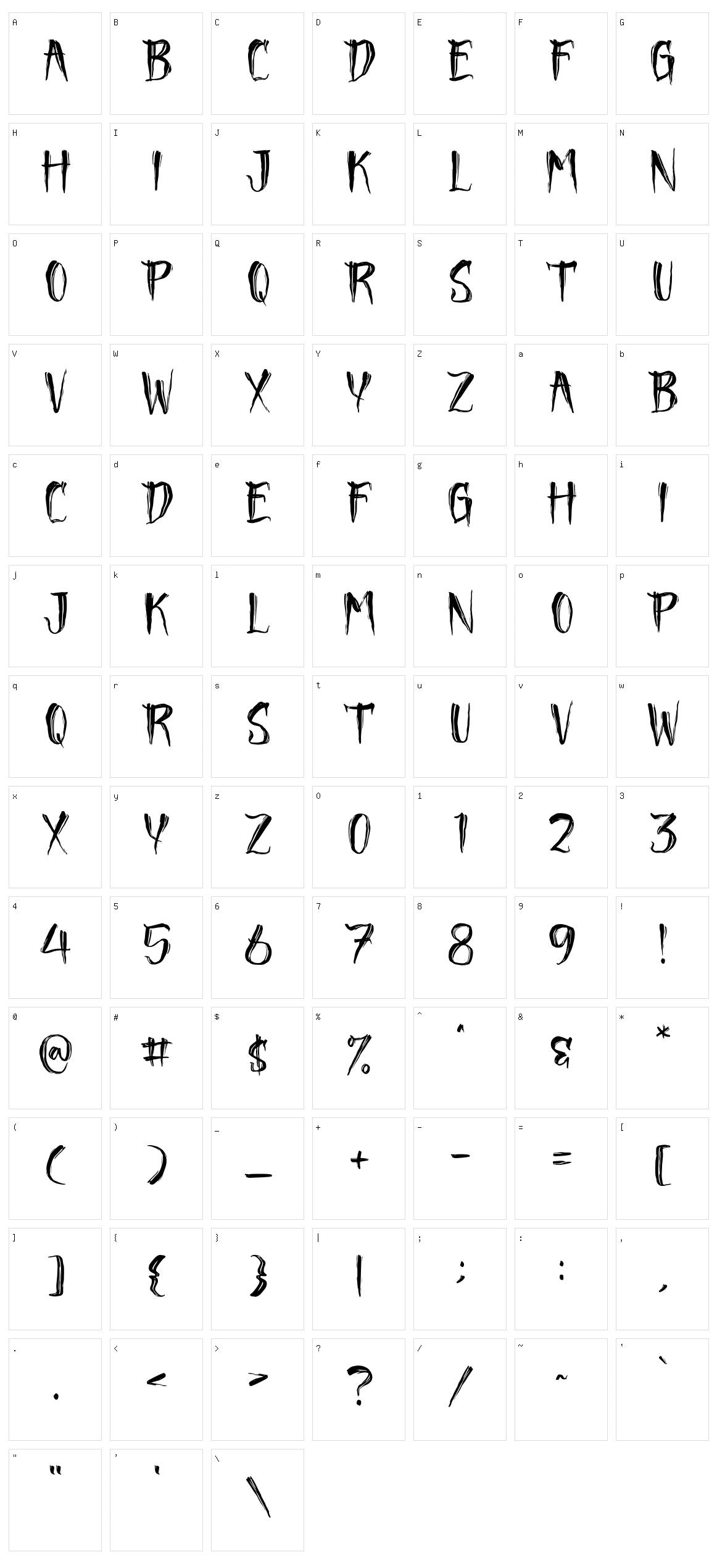
The free font Rusty Witches is carefully designed by Letterena Studios, showcasing a thoughtful balance of creativity and usability and falls under the Halloween font style. When you download the ZIP file, it contains only 68.48 KB of font files, making it lightweight and quick to download. Please review the license details below to understand permitted usage and distribution rights. If license information is not available, we recommend using this font for personal projects only or contacting the author directly for commercial usage permissions.